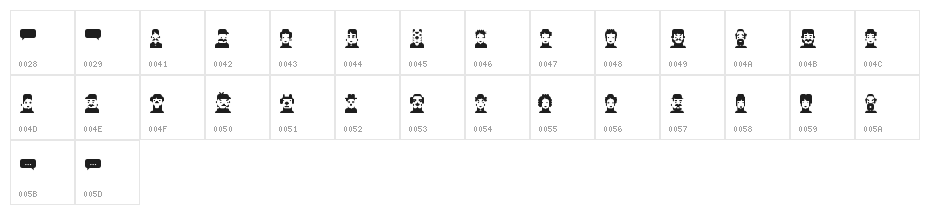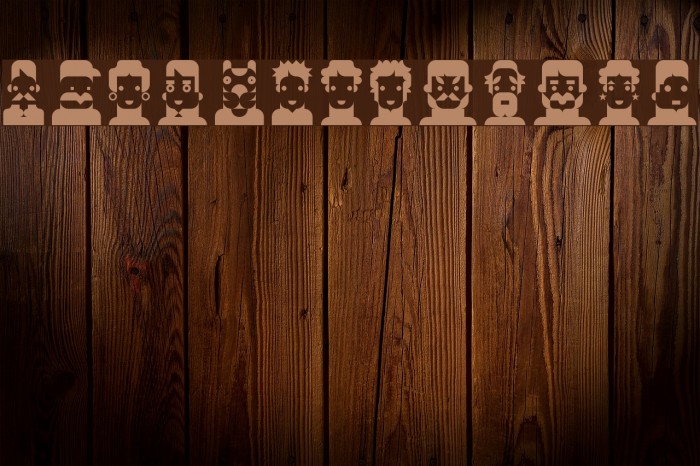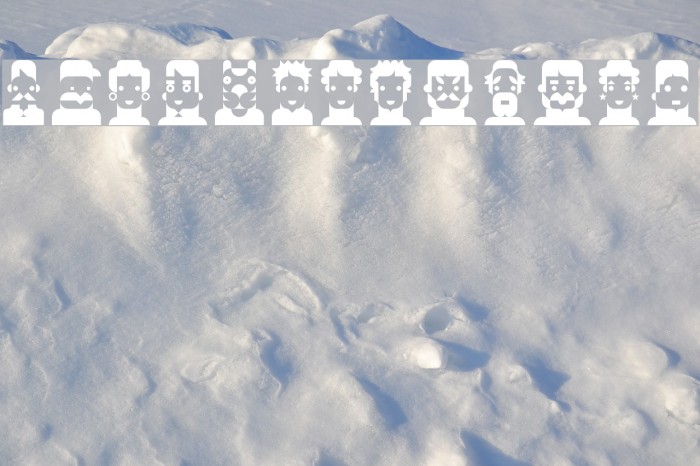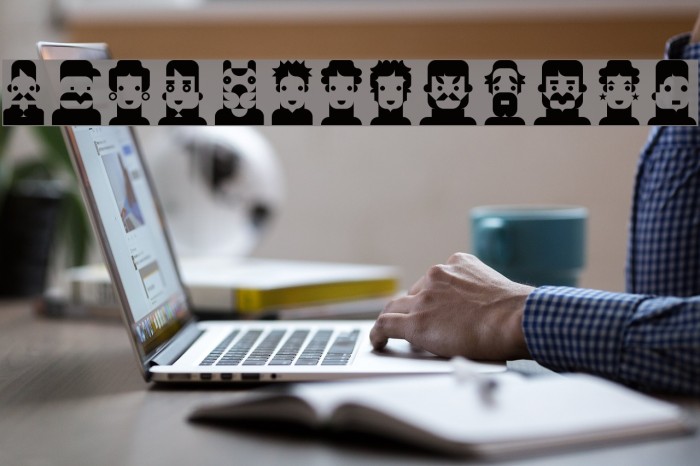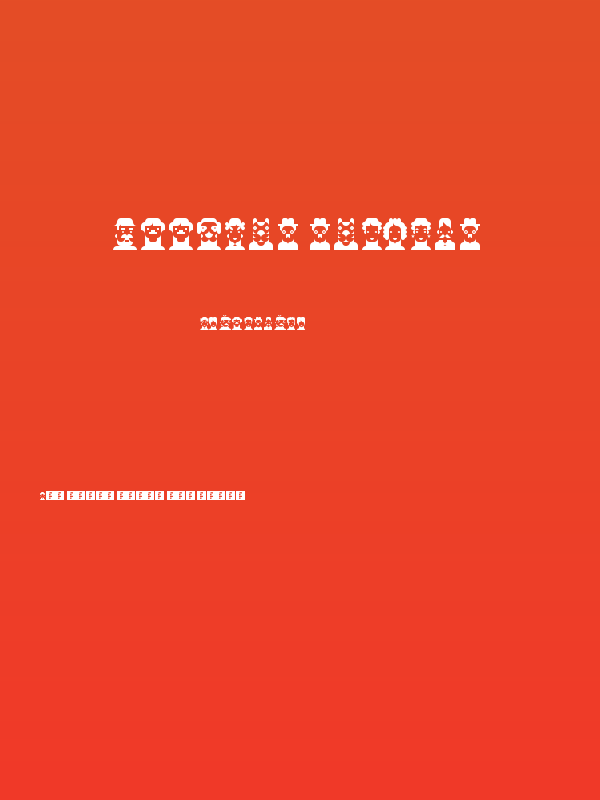
wooster Regular Font
wooster Regular Description
This is not a valid font. The image contains a series of icons or symbols rather than a traditional alphabetic font. Each character is represented by a unique face or symbol, which does not correspond to standard alphanumeric characters. This set is more suitable for decorative or illustrative purposes rather than textual representation.
| Use Case | Decorative elements, Illustrations |
| Proposed Projects | This set could be used for creating unique avatars, decorative elements in graphic design, or as part of a themed illustration project. |